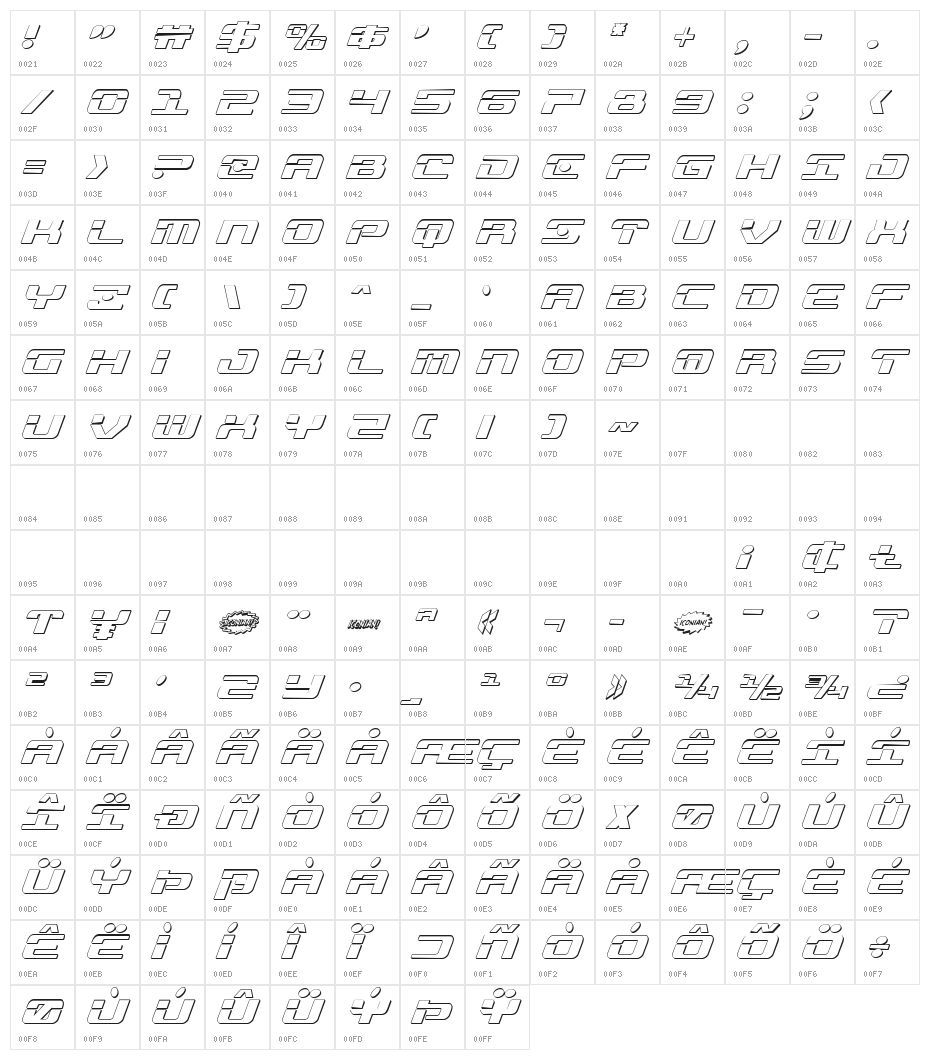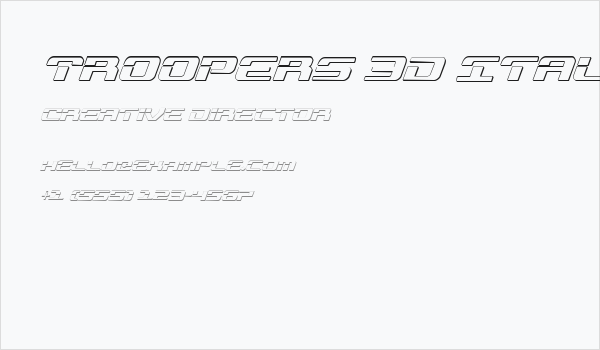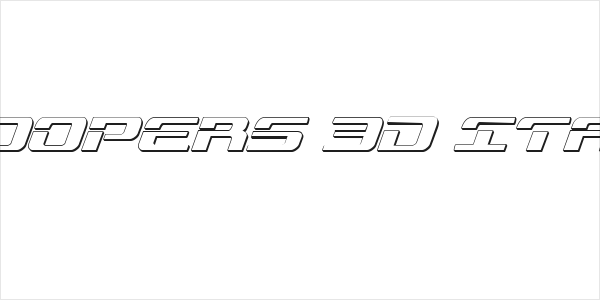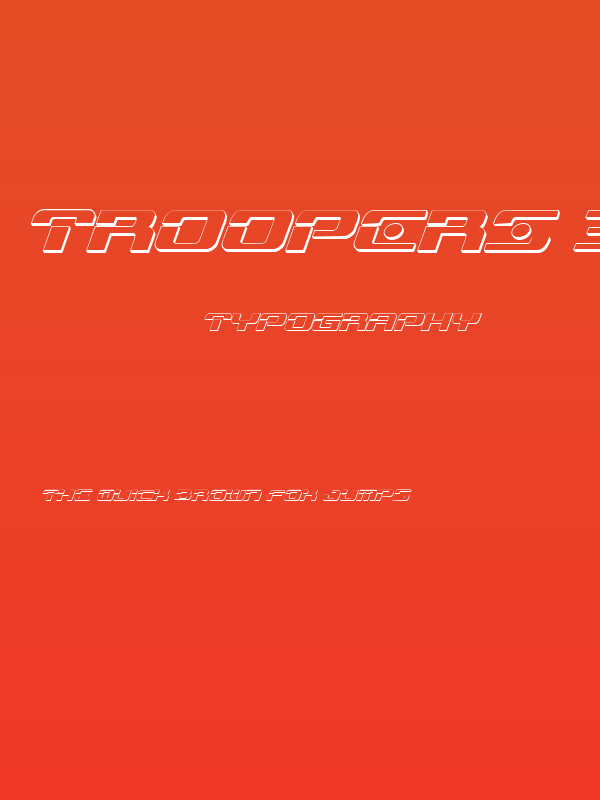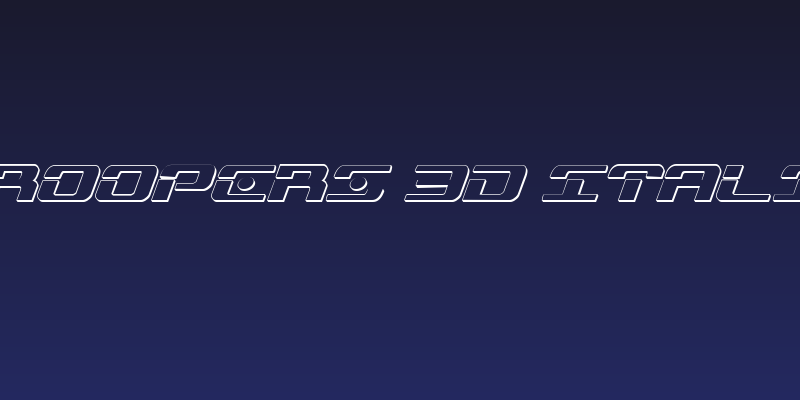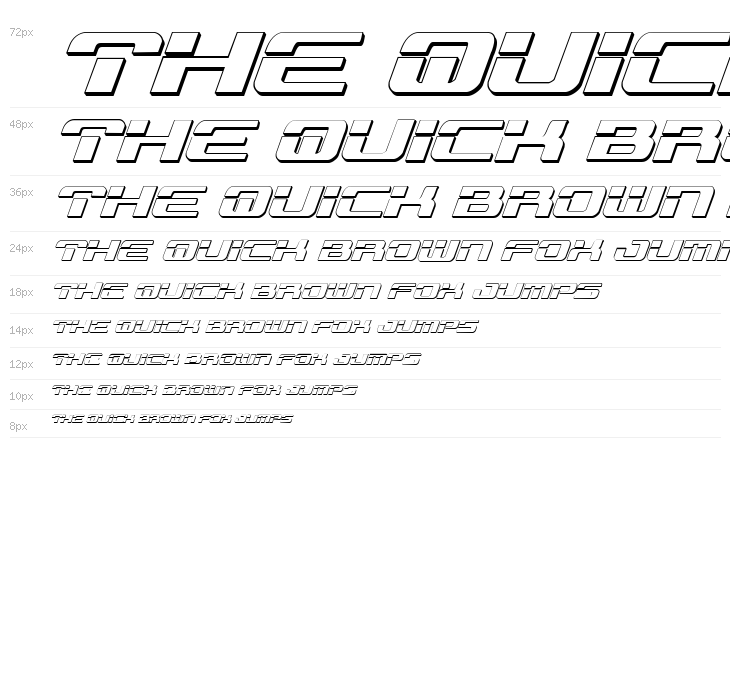
Troopers 3D Italic Font
Troopers 3D Italic Description
This font features a bold, futuristic design with a 3D effect that gives it a distinctive, eye-catching appearance. The characters are outlined, creating a sense of depth and dimension. The font has a geometric structure with sharp angles and clean lines, making it ideal for modern and tech-oriented projects. The italic style adds a dynamic and forward-moving feel, enhancing its contemporary look. The uppercase and lowercase letters maintain a consistent style, while the numbers and special characters are designed to complement the overall aesthetic.
| Proposed Projects | Ideal for sci-fi themed designs, tech branding, video game titles, and futuristic posters. |